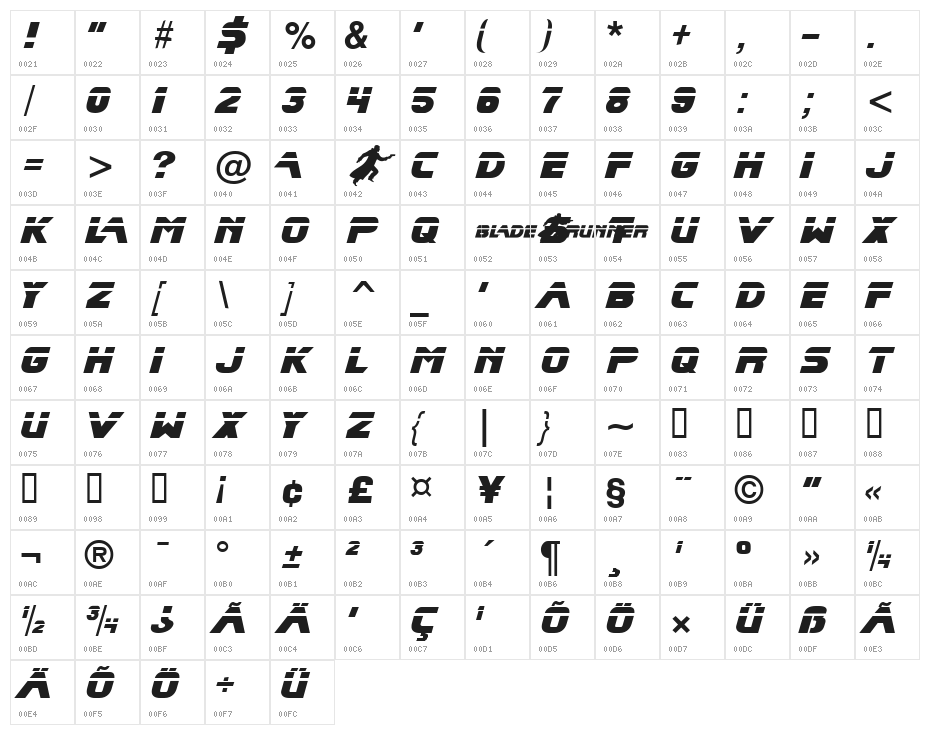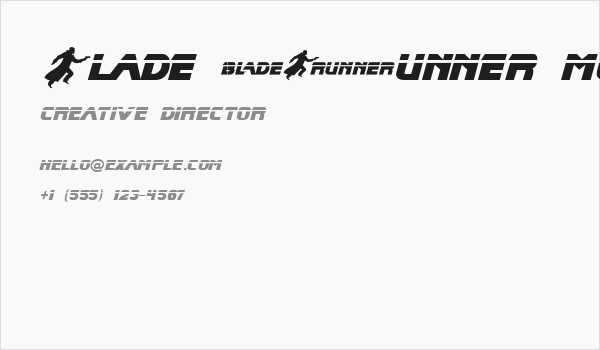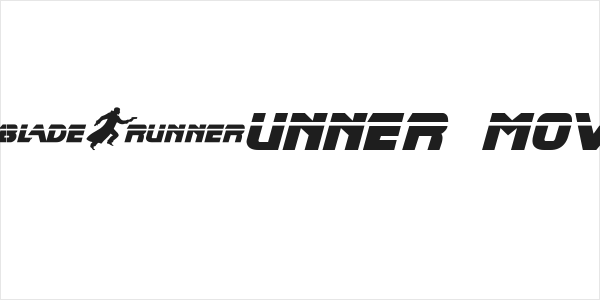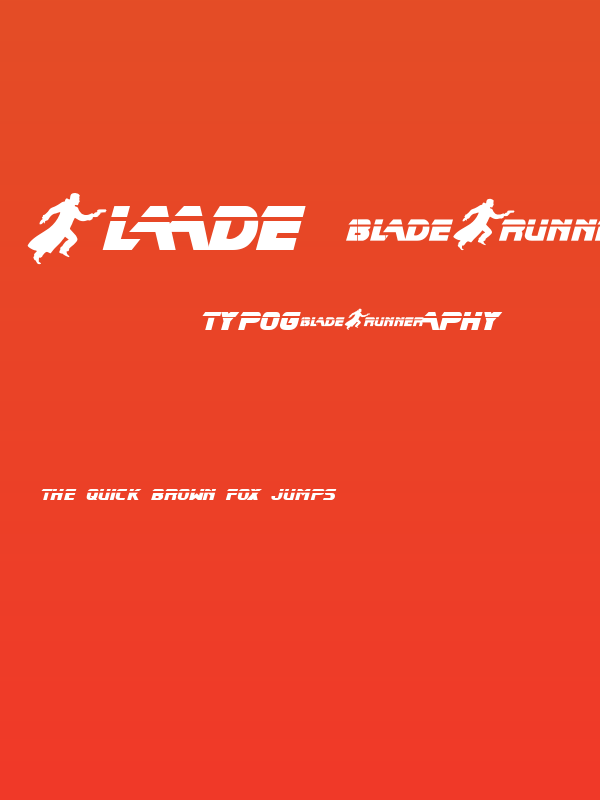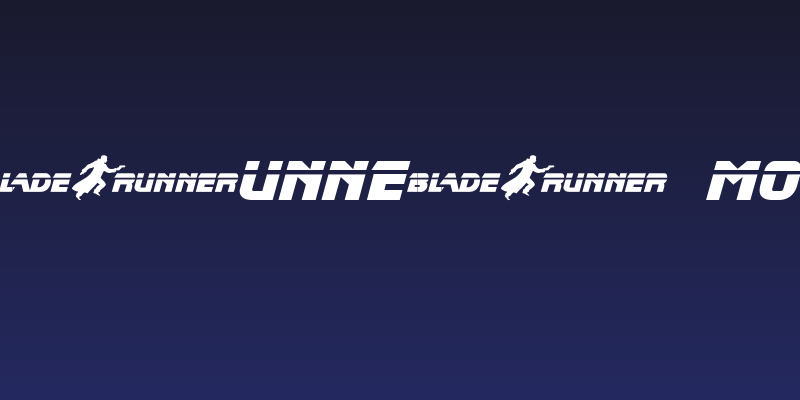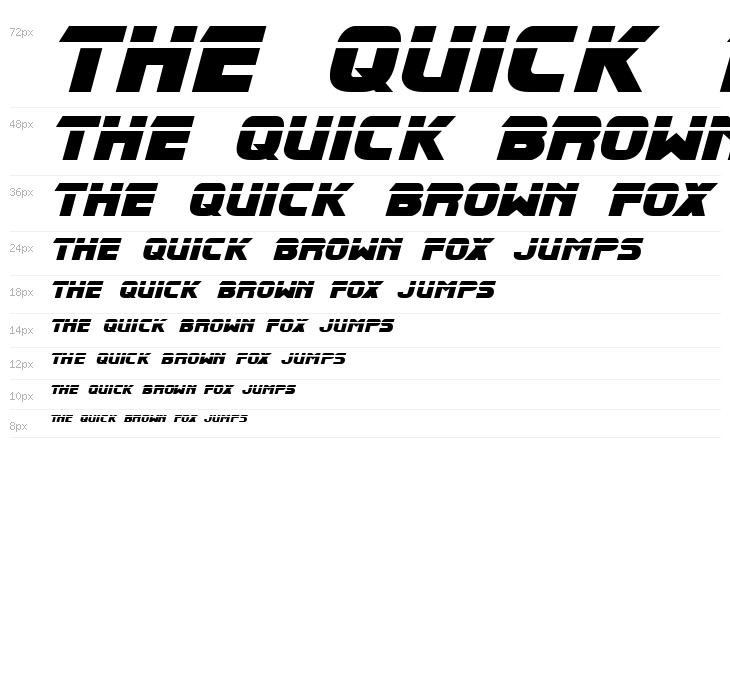
Blade Runner Movie Font Font
Blade Runner Movie Font Description
This font features a futuristic and dynamic style, characterized by its bold and angular letterforms. The design incorporates sharp edges and a slanted orientation, giving it a sense of motion and energy. The uppercase letters are particularly striking, with a consistent width and a slightly condensed appearance. The numerals and special characters maintain the same boldness, ensuring uniformity across all glyphs. This font is reminiscent of sci-fi aesthetics, making it ideal for projects that require a modern and edgy look.
| Proposed Projects | Ideal for sci-fi movie posters, video game titles, futuristic branding, and tech-related designs. |